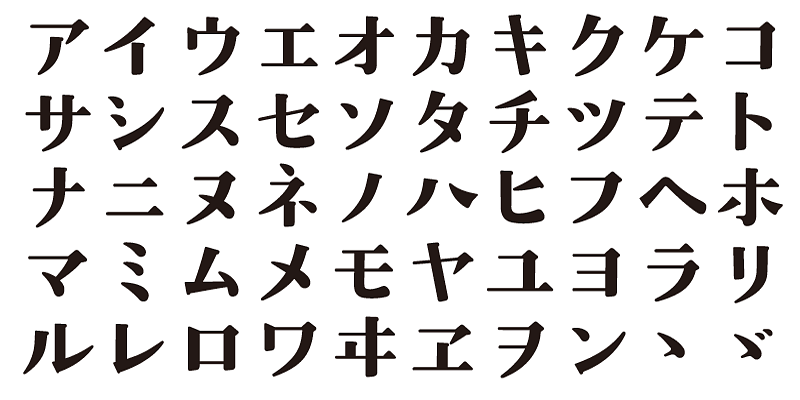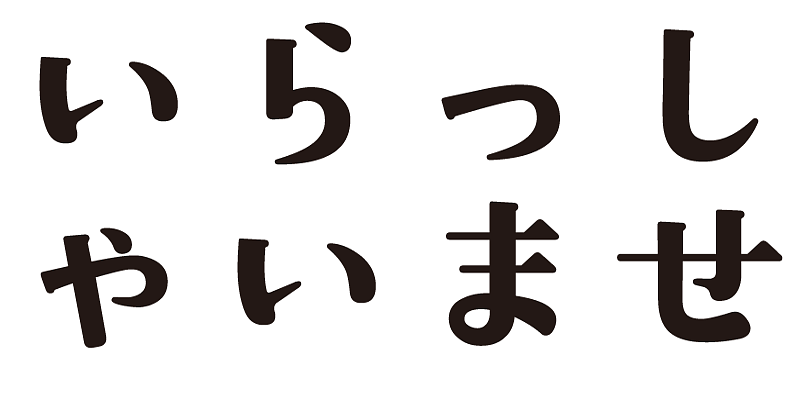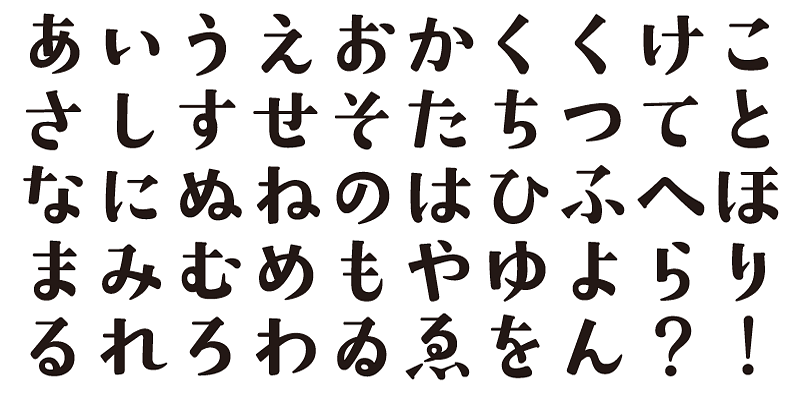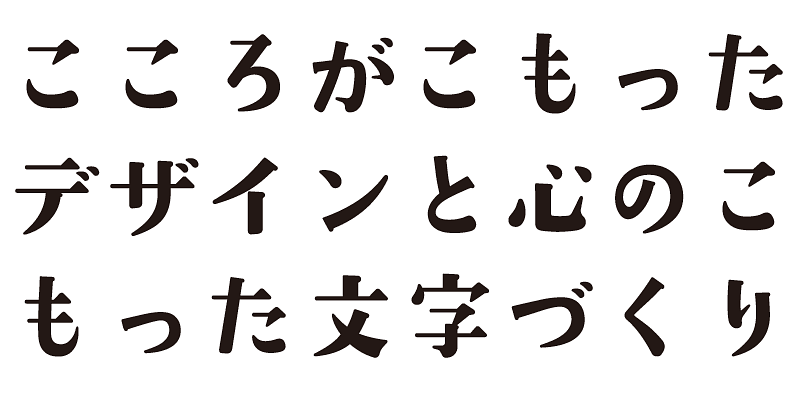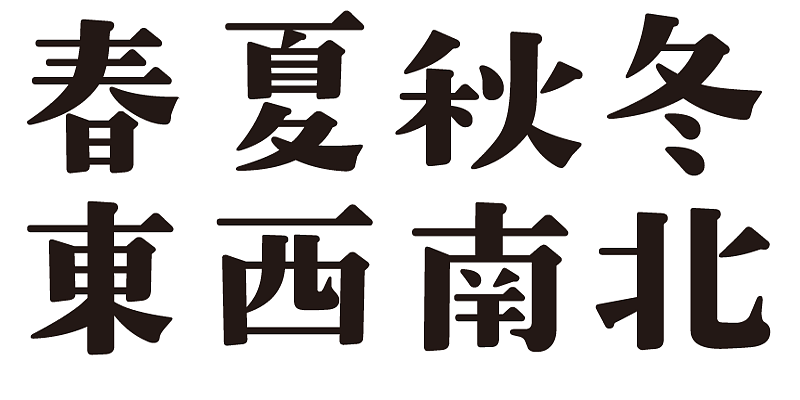
This is a design that evokes a sense of movement at a walking speed. A casual, heavy-weight Mincho typeface.
Each font in this typeface family includes 1,000 kanji characters, as well as hiragana, katakana, alphanumeric characters, and punctuation marks.
We design typefaces with the hope that they will add underlying meaning to words expressed. We wish the user to feel good and experience comfort and joy when using these typefaces.